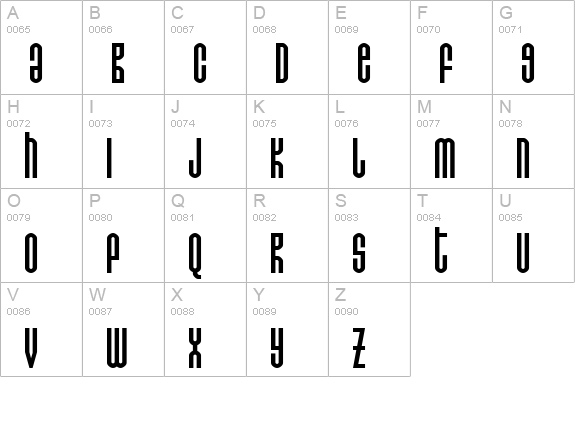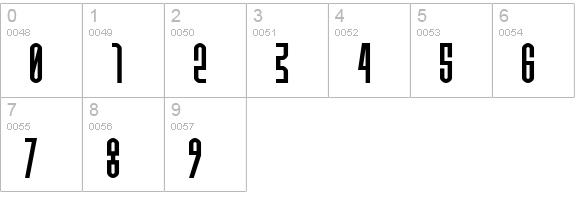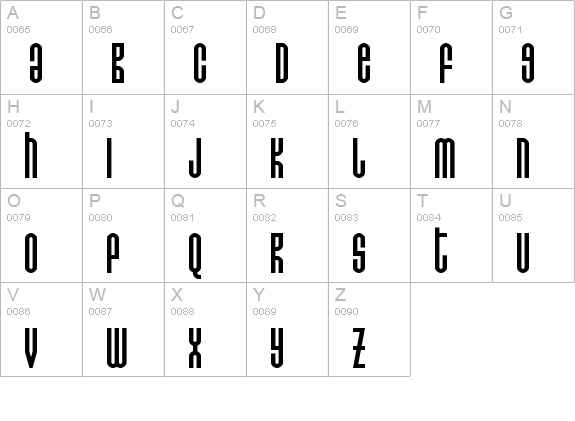
Do not eat this Font Details
Do not eat this font is a unique and playful typeface that will add a touch of whimsy to any design project. With its quirky shapes and bold strokes, this font is sure to stand out and make a statement. Please remember that this font is for visual use only and should not be consumed. However, you are free to download it for your personal or commercial projects from FontsMarket.com. Get your hands on this fun and eye-catching font today and let your creativity shine!